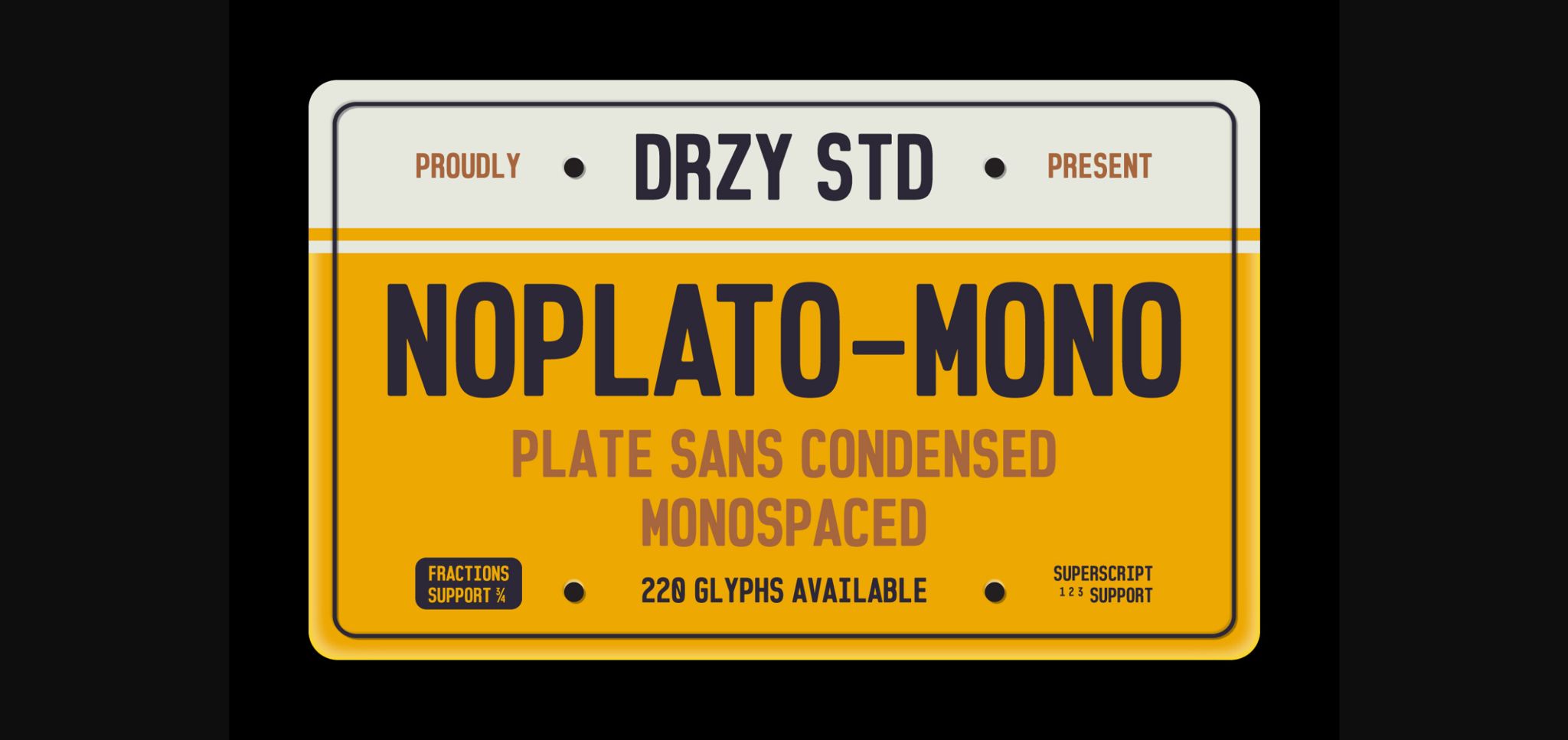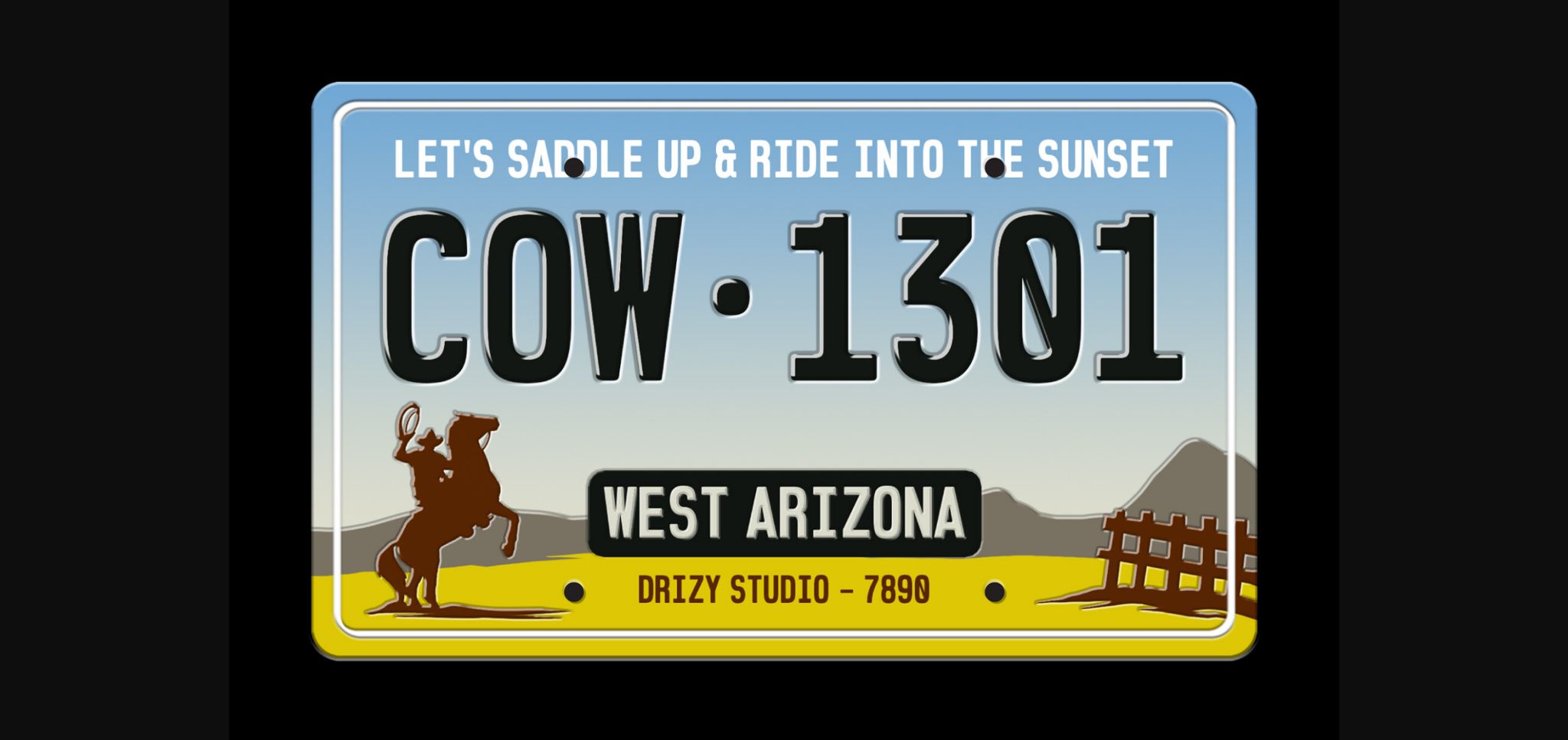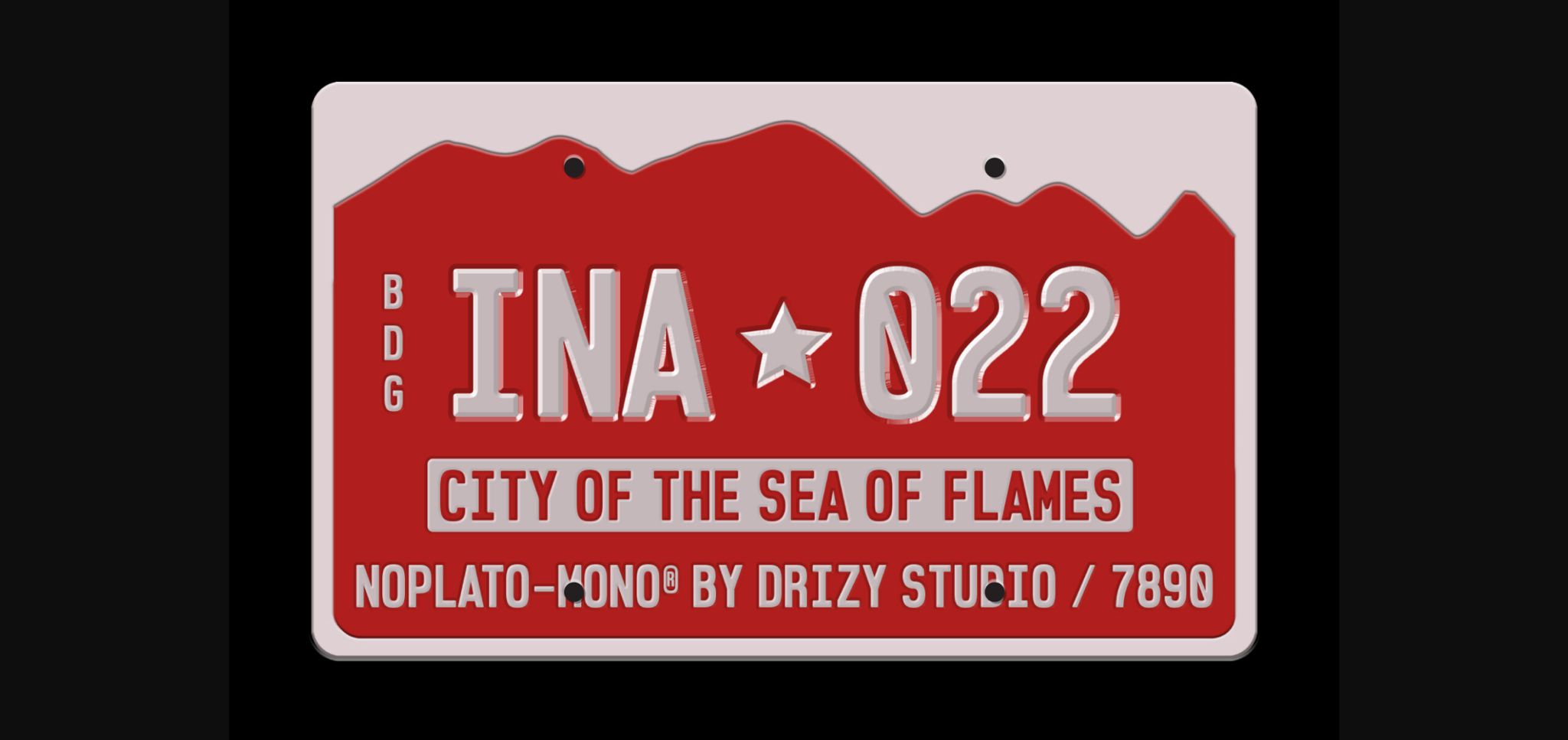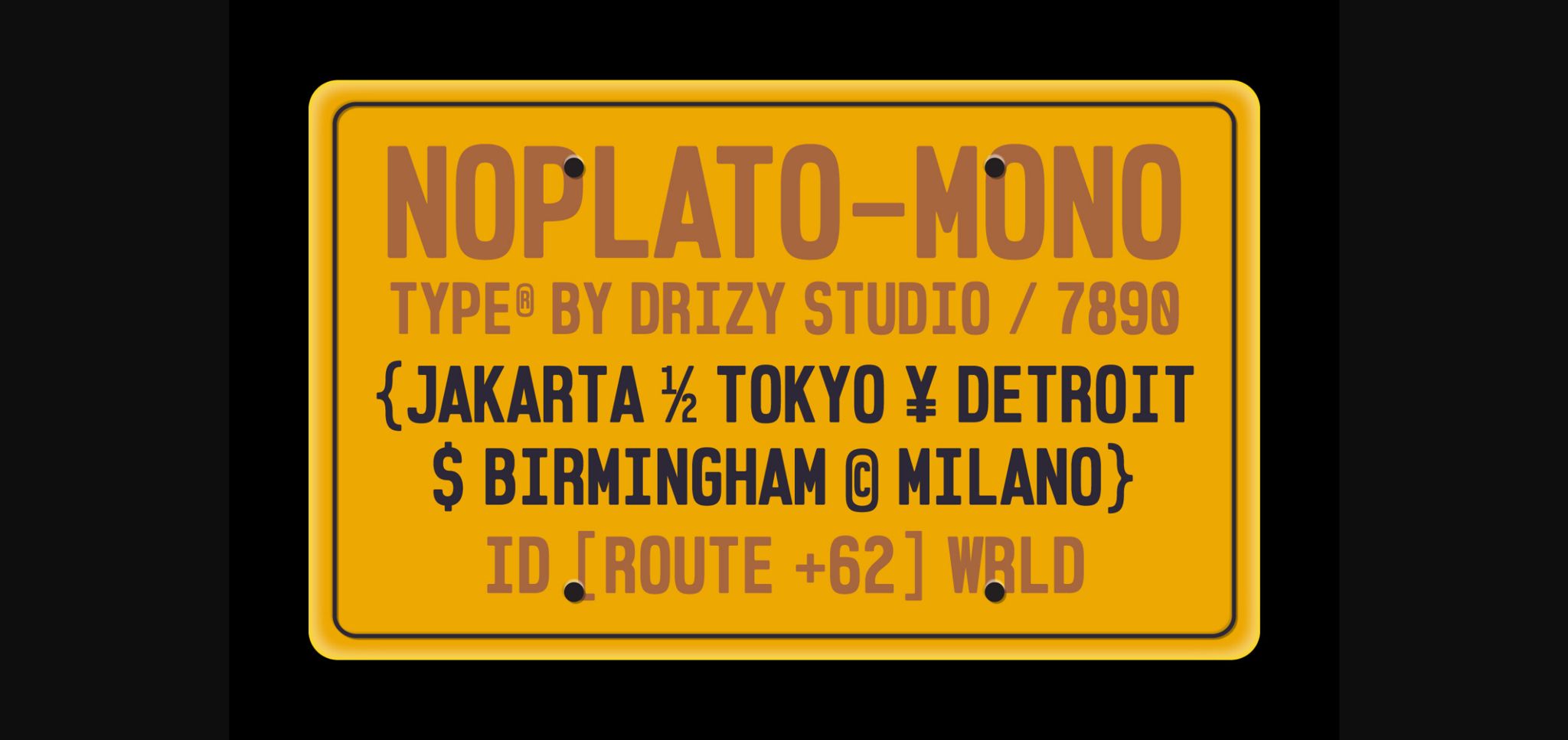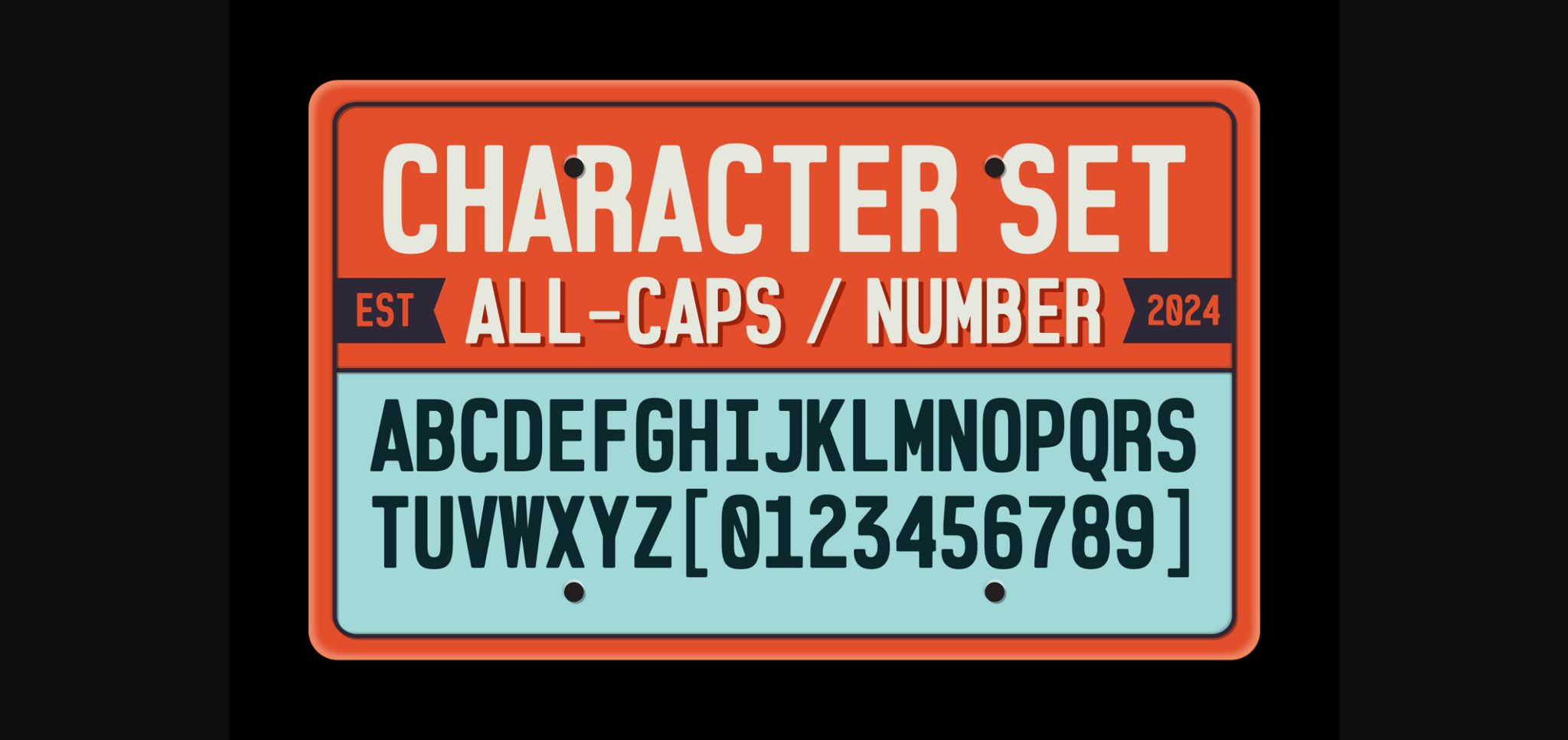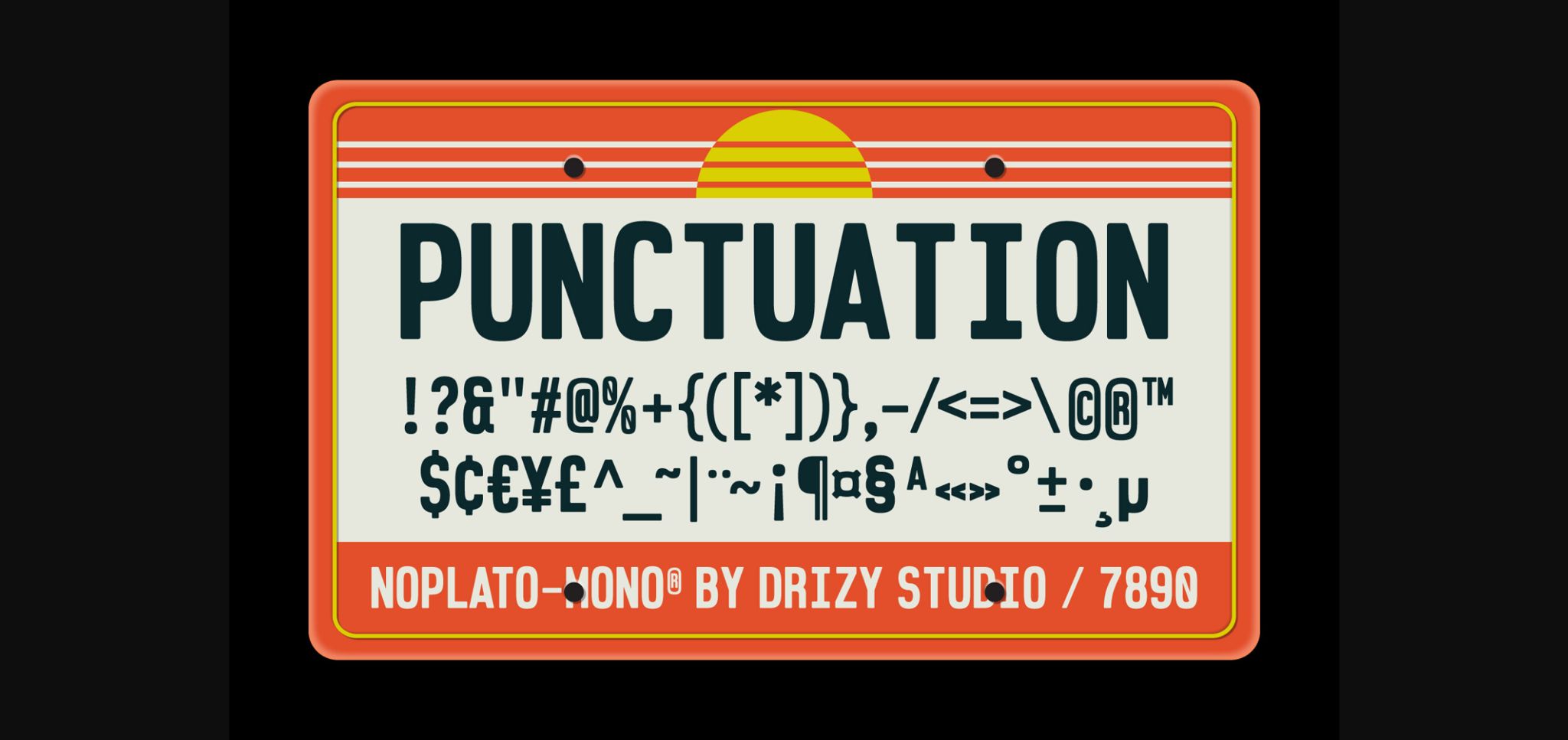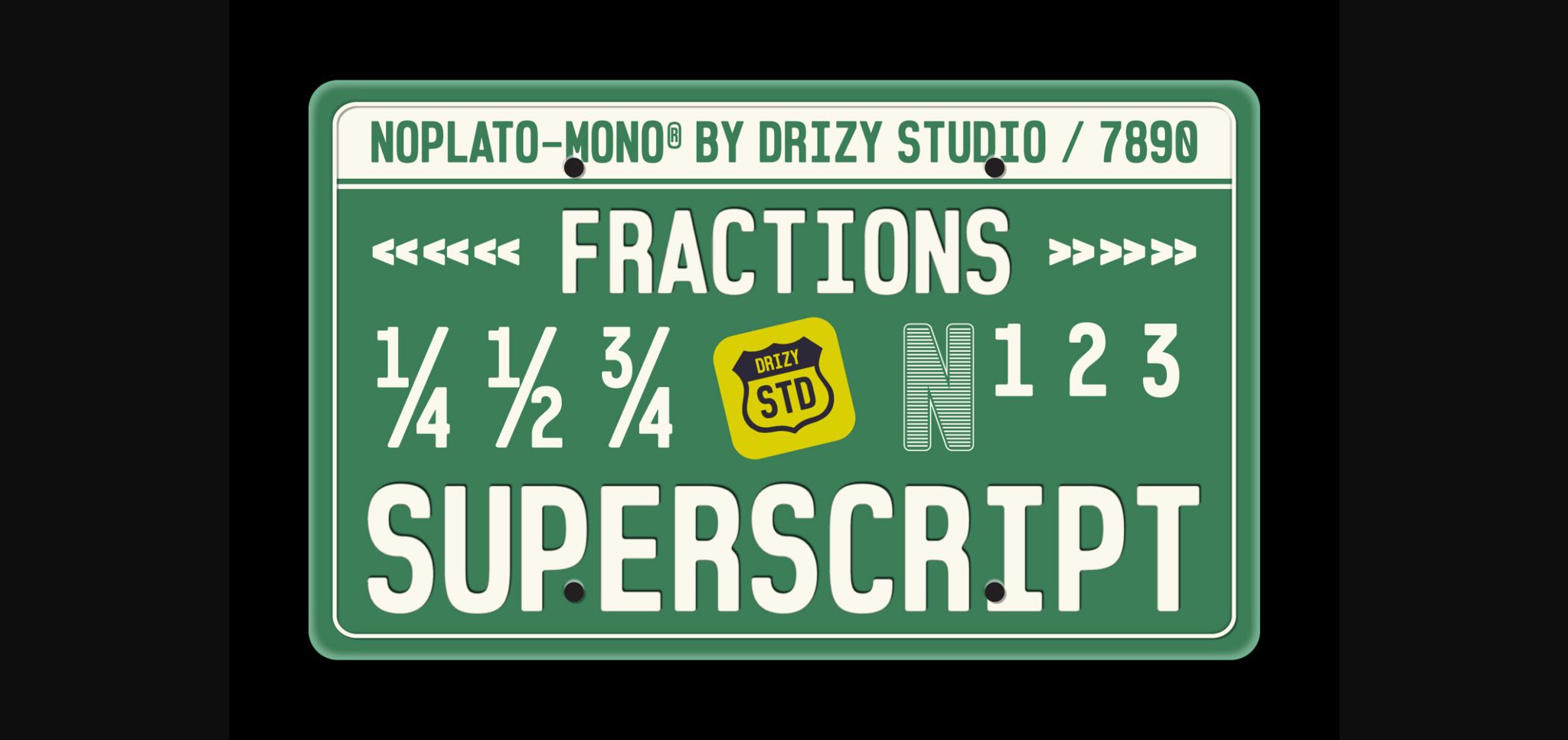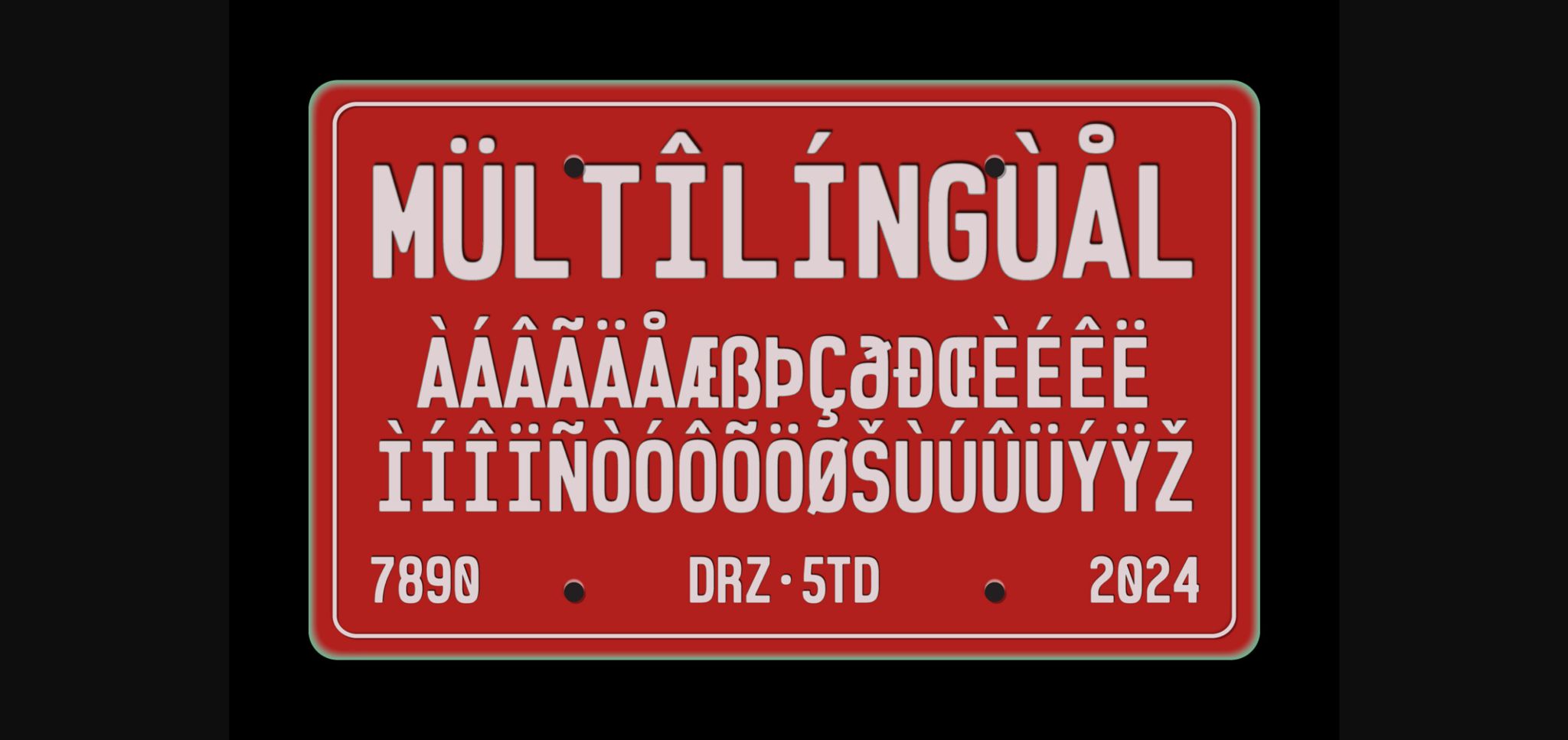
Noplato Mono Font
About Noplato Mono Font
Introducing Noplato – a stylish and condensed monospaced font tailored specifically for plates. With its sleek design and efficient use of space, Noplato ensures that every character stands out crisply and clearly, even in the limited confines of a plate.